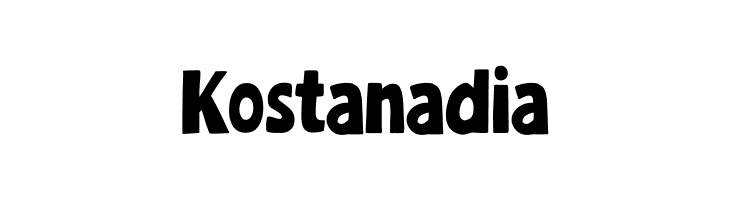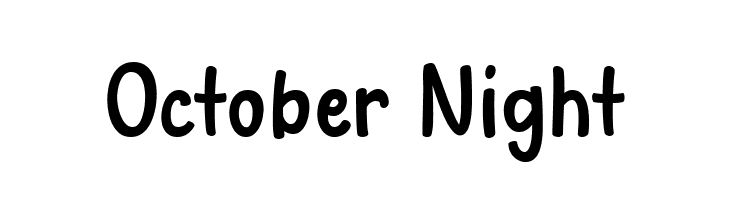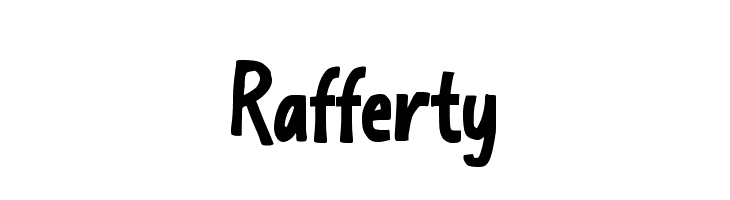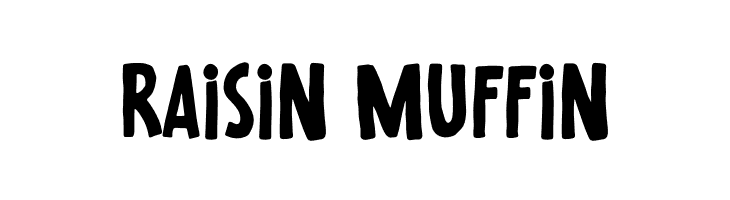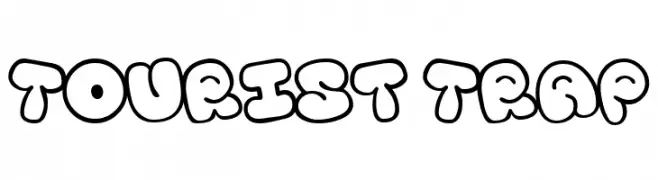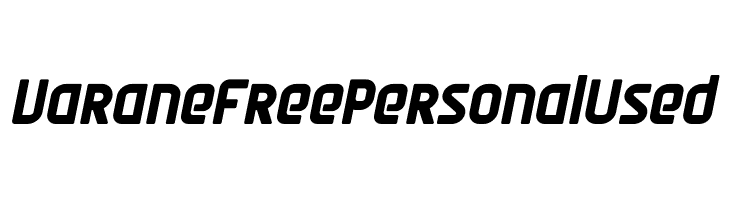
A modern, geometric font with a futuristic and dynamic design.
A bold, brush-style font with dynamic and energetic strokes.
A playful, handwritten font with bold, dynamic letters and a lively style.
A playful, bold handwritten font with dynamic strokes and a casual style.
A playful, hand-drawn font with smooth, rounded edges and a casual style.
An elegant script font with flowing, cursive letterforms and a sophisticated style.
A playful, hand-drawn font with rounded edges and a casual style.
A flowing, cursive font with elegant, handwritten signature style.
A fluid, cursive font with elegant, slanted strokes and a personal touch.
A whimsical, handwritten font with thin, flowing lines and playful curves.
A decorative font with vintage and modern influences, featuring playful curves and artistic flair.
A fluid, elegant script font with a natural handwritten style.
A playful, hand-drawn font with bold, irregular strokes and a whimsical style.
A playful, rounded font with smooth curves and a friendly appearance.
A playful and flowing script font with elegant curves and decorative swashes.
A bold, playful handwritten font with rounded, inviting characters.
A playful, casual handwritten font with smooth curves and a friendly appearance.
A playful, handwritten font with rounded, consistent strokes.
A playful, handwritten font with smooth, rounded edges and a casual style.
A playful and energetic script font with smooth, cursive letterforms.
A bold serif font with high contrast and elegant serifs, perfect for impactful designs.
A smooth, flowing script font with a natural handwriting style.
A playful and casual handwritten font with fluid strokes.
A playful, handwritten script font with a whimsical and fluid style.
A bold, brush-style font with dynamic, expressive strokes.
A bold, playful font with exaggerated curves and a whimsical style.
A modern, geometric inline font with clean lines and balanced proportions.
A bold, geometric font with a strong, industrial aesthetic.
A bold, geometric font with strong, thick strokes for a modern and impactful look.
A modern, italic font with a sleek, narrow design and tight character spacing.